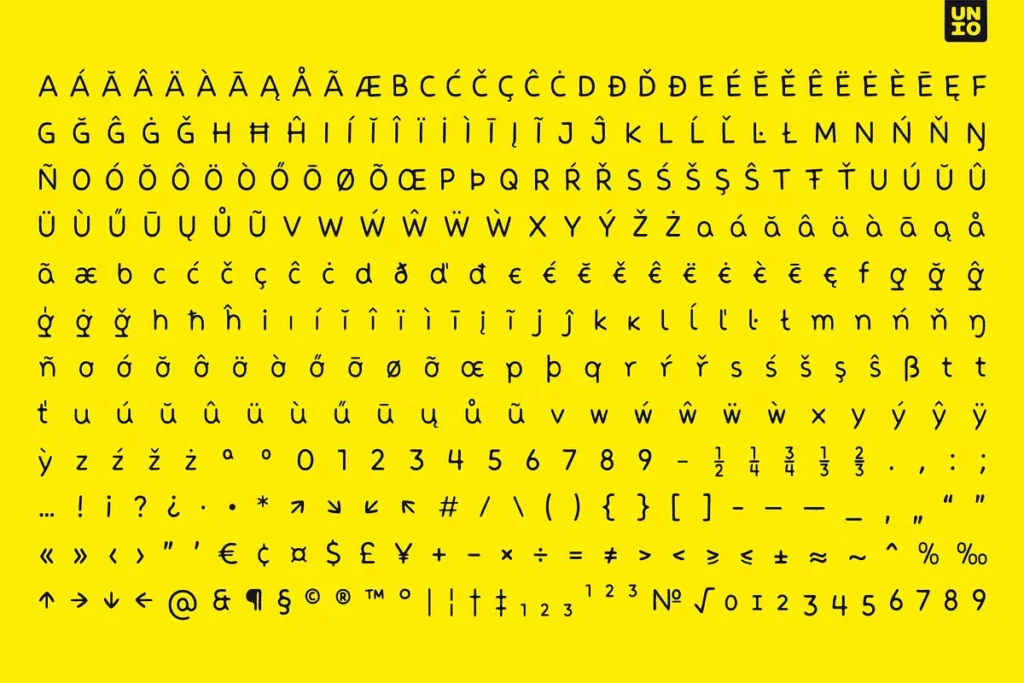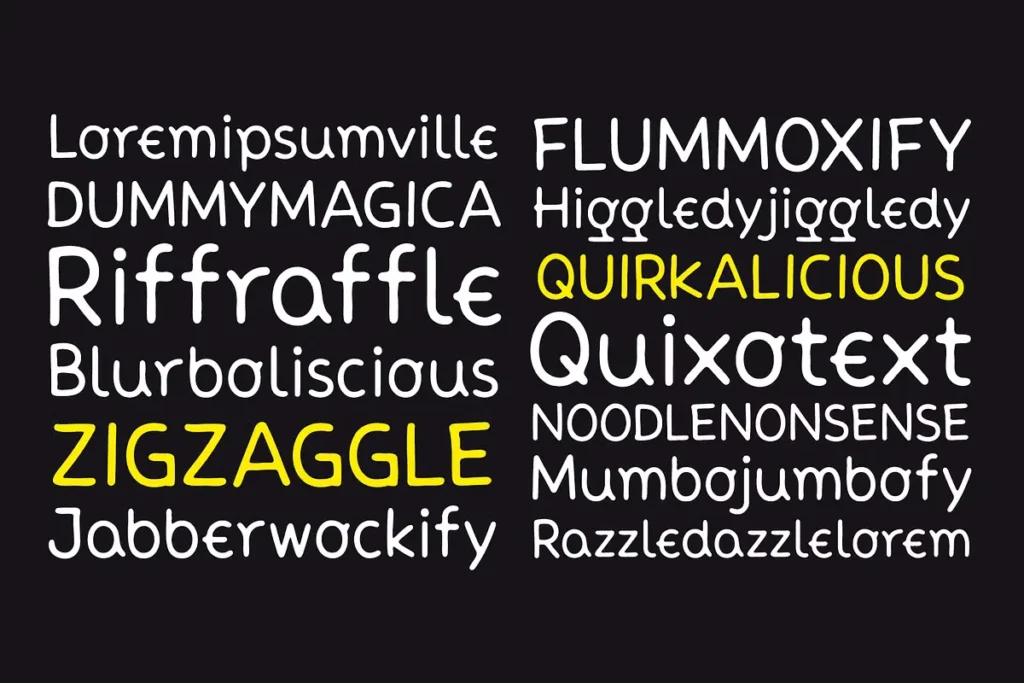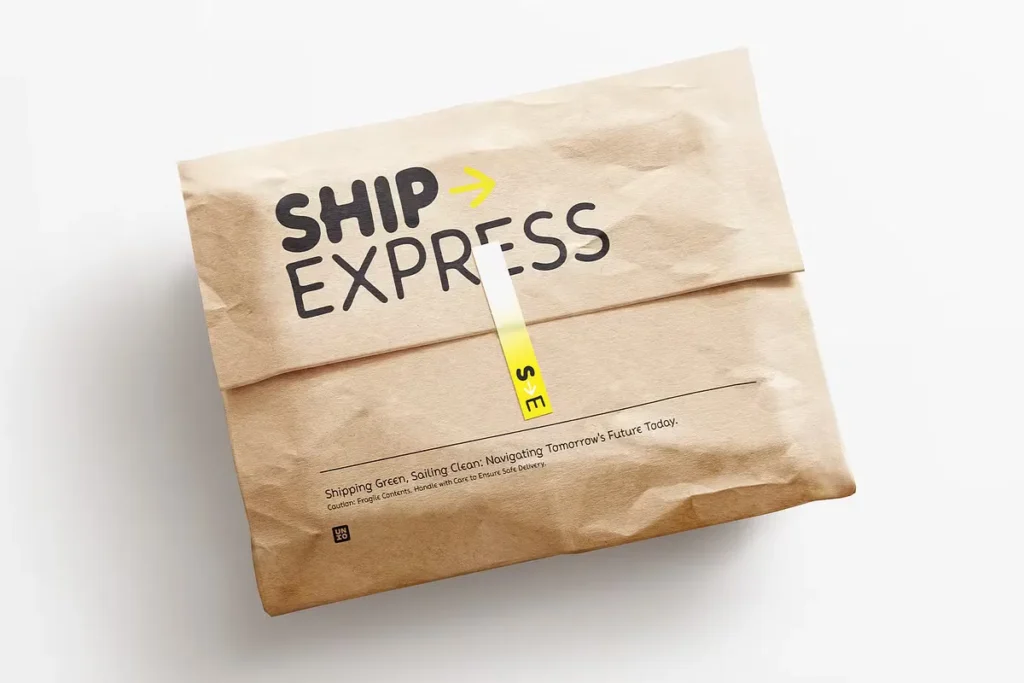
Neue Comic – Free Quirky Handwritten Font is a fresh and playful typeface that blends the charm of comic-style lettering with the precision and clarity of contemporary sans serif design. This quirky handwritten font offers a delightful softness, thanks to its rounded shapes, making it perfect for brands and creatives seeking a friendly, approachable vibe in their designs.
Designed with versatility in mind, Neue Comic works beautifully across a wide range of applications — from bold typography for posters and social media graphics to food branding, packaging design, and comic book layouts. Its chunky yet clean letterforms ensure readability while maintaining a unique, handmade character that stands out. Whether you’re creating fun, lighthearted projects or aiming for a trendy, decorative display, this font adapts effortlessly.
As a variable font, Neue Comic offers flexibility in weight and style adjustments, giving designers greater control over their typography. It’s a perfect blend of traditional comic aesthetics and modern typography revival, making it a fresh addition to your font collection.
This typeface is not only cute and funny but also highly functional, making it ideal for branding, headlines, marketing materials, and creative projects where personality matters. From quirky quotes to eye-catching product labels, Neue Comic injects life and playfulness into every design.
Neue Comic Free Quirky Handwritten Font